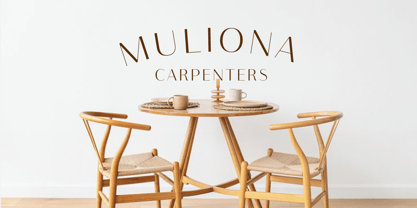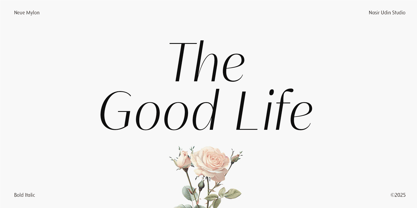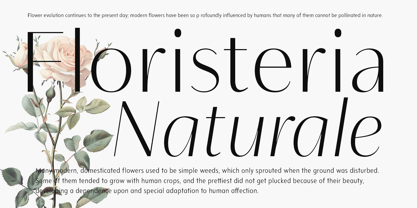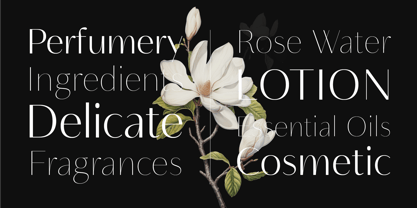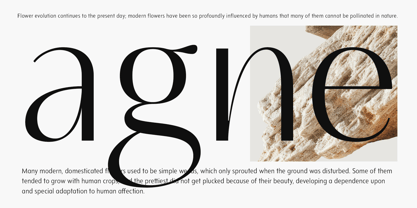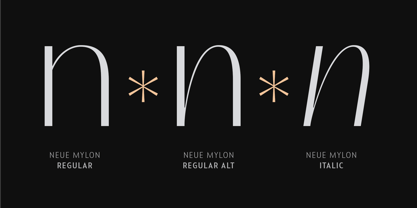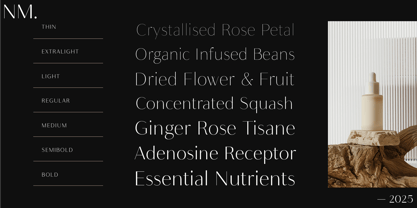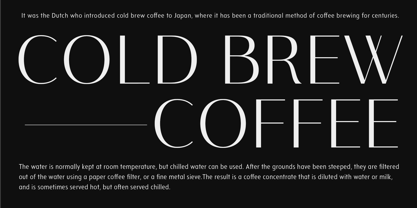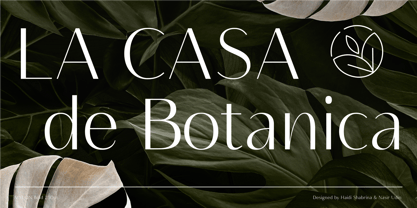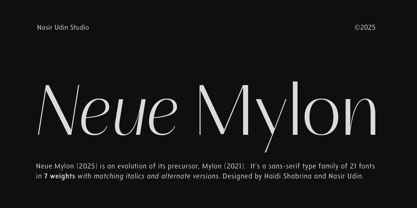
Neue Mylon
The Neue Mylon Font Family was designed by Nasir Udin, Haidi Shabrina and published by Nasir Udin. Neue Mylon contains 21 styles and family package options. More about this family
Neue Mylon is an evolution of its precursor, Mylon (2021). It’s a high-contrast display sans serif type family of 21 fonts in 7 weights with matching italics and alternates versions.
Neue Mylon works well with headlines or short paragraphs, suitable for branding with elegant vibes. It has extended latin character set that supports 200+ latin-based languages.